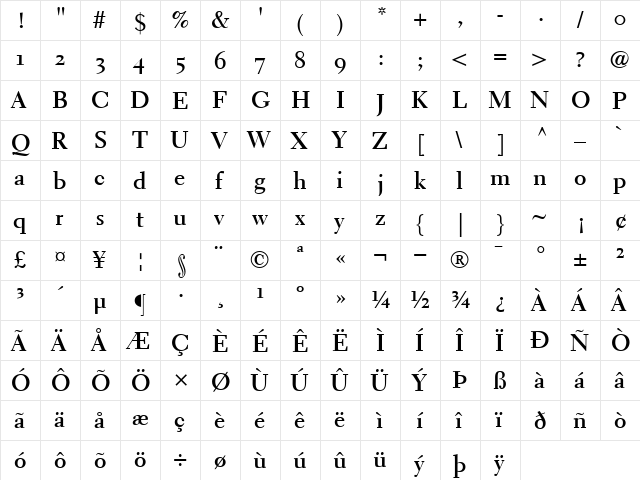
ElectraLHOldstyleFigures Bold
Design Context for ElectraLHOldstyleFigures Typeface
ElectraLHOldstyleFigures carries the refined structure of traditional serif typography, with bracketed terminals and considered proportions that communicate credibility and craft. Its bold stroke weight gives it real presence on the page.
Pro Tip: Use ElectraLHOldstyleFigures for editorial body copy and considered headline work. Pair with a neutral sans for UI elements or captions to create a classic hierarchy.